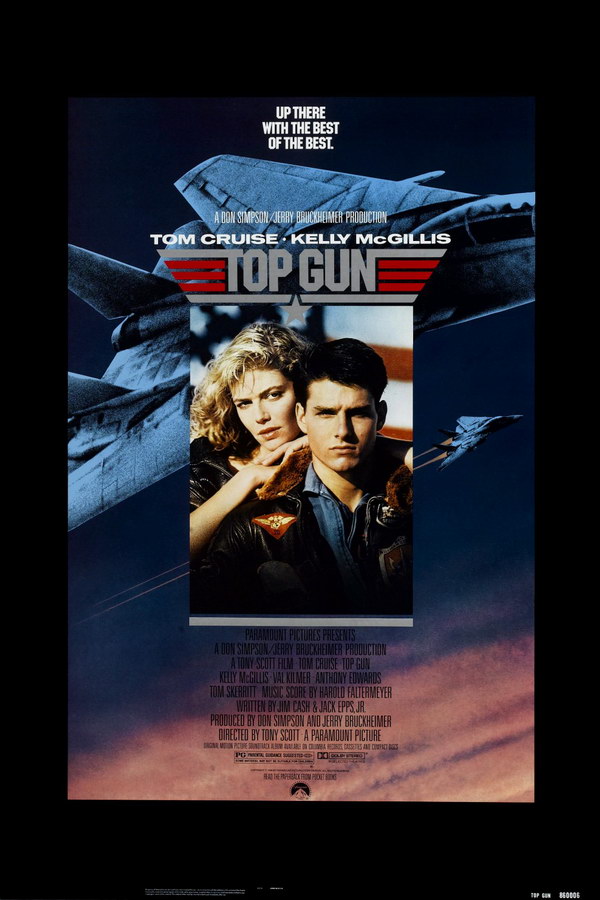
Top Gun Font
ActionTop Gun is a 1986 American action film directed by Tony Scott. In the movie, Tom Cruise plays Lieutenant Pete "Maverick" Mitchell, a young aviator aboard the USS Enterprise. He along with his radar intercept officer, Lieutenant, are given an opportunity to train at Naval Air Station Miramar's Fighter Weapons School (Top Gun).
The movie title in the poster is most likely written in ITC Machine by Ronnie Bonder and Tom Carnase. The font is a commercial one and more details about it can be found here.